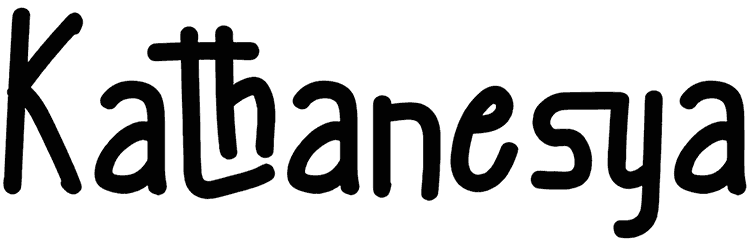
Kathanesya Font
Would you consider your upcoming design to have a cute and real vibe? Kathanesya, as a handwritten font, will do this for you. This modern font can beautifully promote a lot of designs, such as kids’ posters, postcards, apparel, or more of the same. Kathanesya can make your designs distinct and eye-catching.
Kathanesya Font is a Modern Display Font which has Classy and Elegant Font style. It will elevate a wide range of design projects to the highest level, be it branding, headings, wedding designs, signatures, logos, labels, and much more!